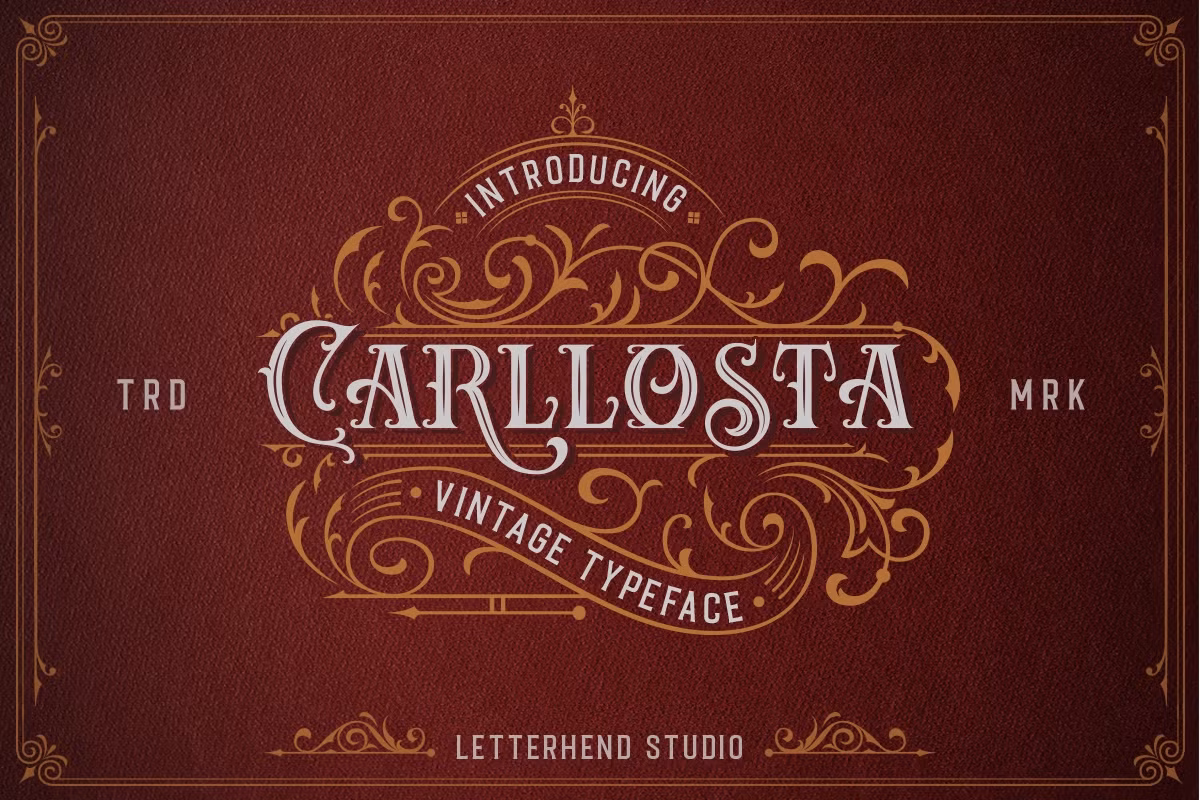
Carllosta - Layered Font (+EXTRAS) Free Download
Carllosta - Layered Font Free Download
Add depth, drama, and retro flair to your design with the Carllosta - Layered Font Free Download — a bold and playful typeface built for attention-grabbing layouts. Featuring a unique layered style, Carllosta allows you to mix colors, shadows, and textures to create vibrant, dimensional typography perfect for posters, packaging, vintage logos, signage, and more.
Whether you're aiming for a nostalgic vibe or a loud modern twist, this font brings versatility and personality to the table. Its stackable layers make it easy to customize and adapt to your project’s style — from bold outlines to striking fills.